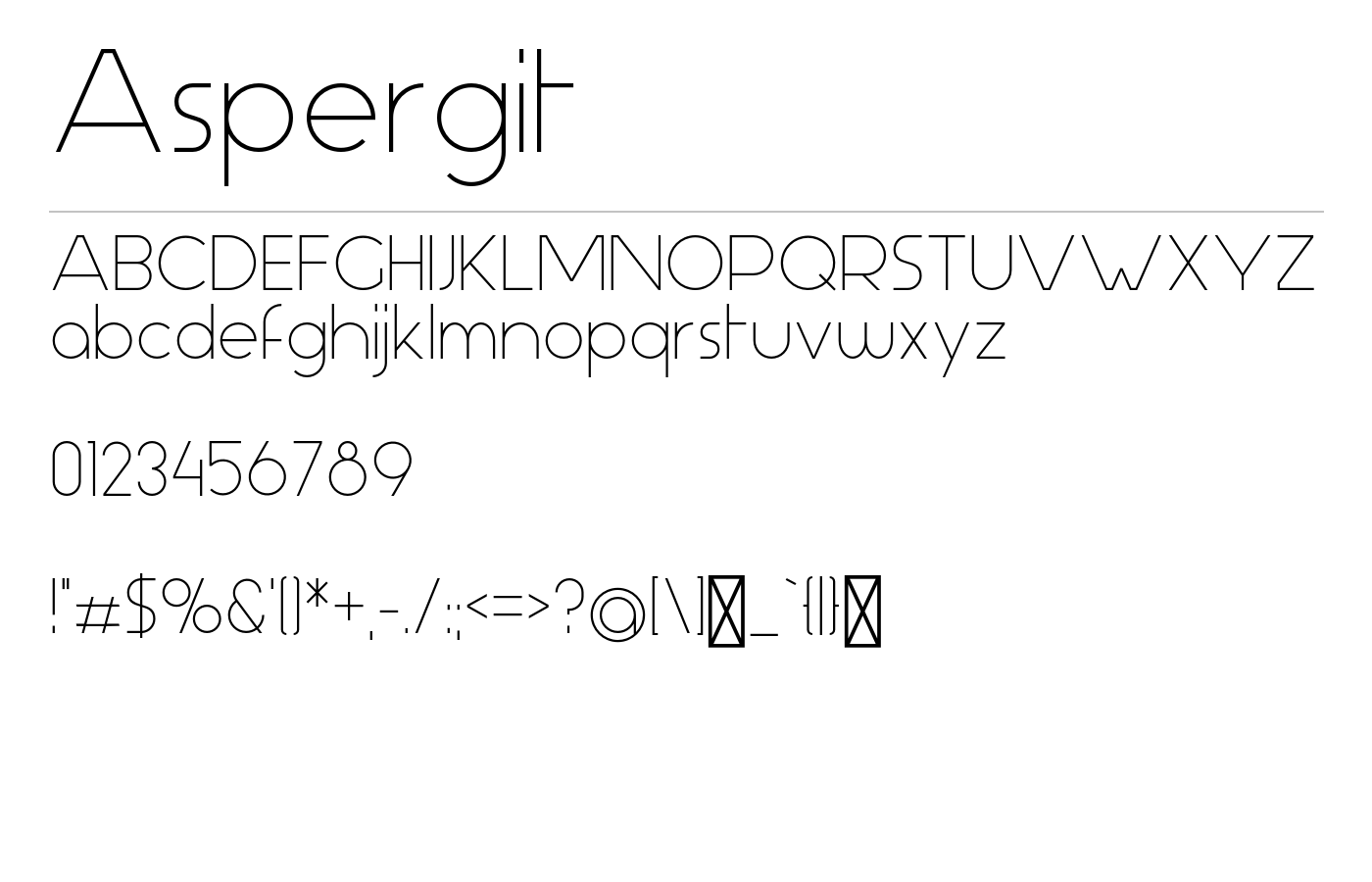
Aspergit is a sleek and modern sans-serif font characterized by its ultra-thin weight and clean, geometric letterforms with a tall x-height. Its minimal stroke contrast and single-story a and g lend it a sophisticated, contemporary feel, making it ideal for stylish branding, editorial headlines, and digital interfaces that seek an elegant, refined look. This font works best in large sizes where its delicate lines can shine, adding a touch of subtle luxury to fashion, tech, and design-focused projects.
Aspergit Font
About Aspergit Font